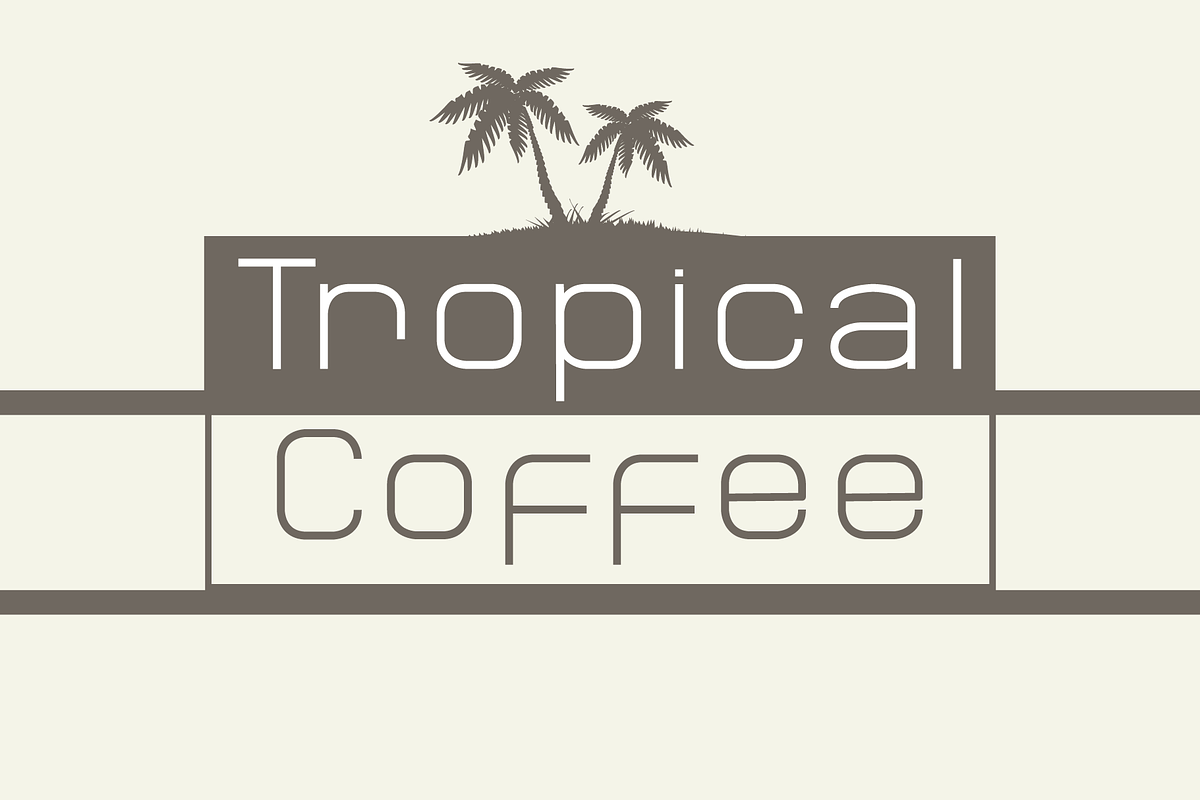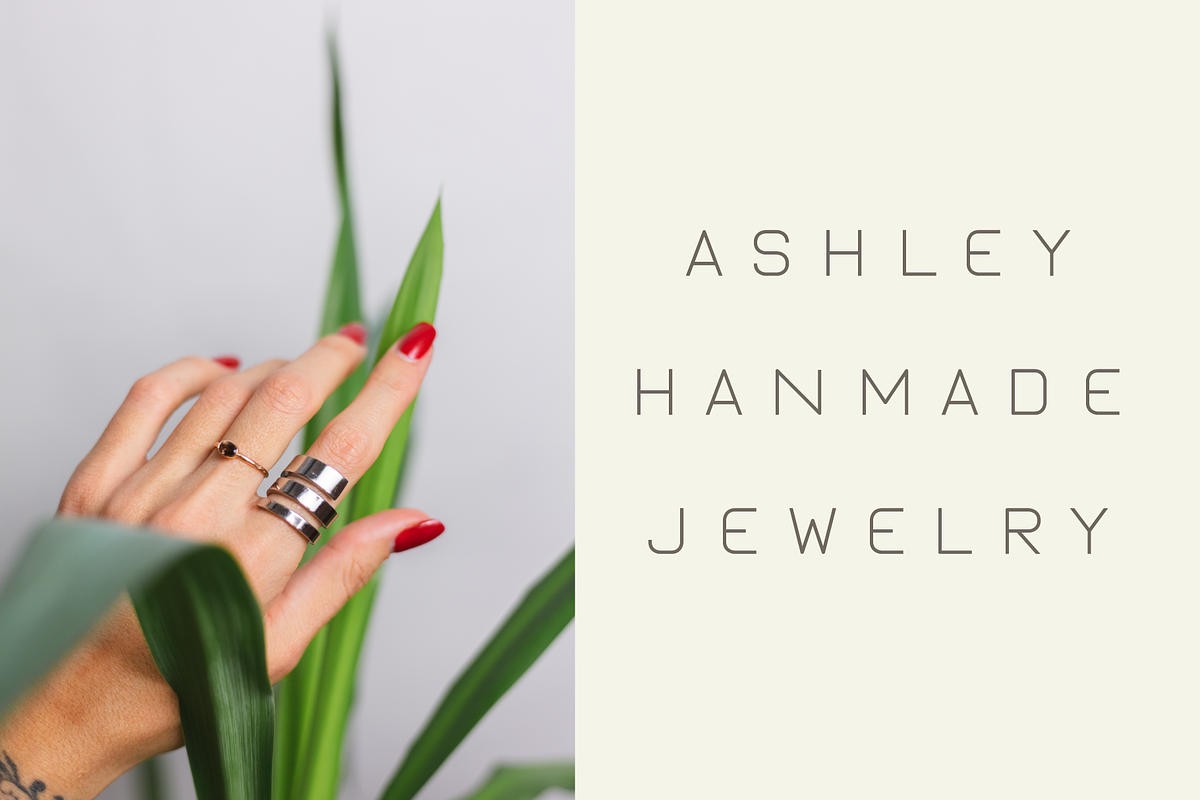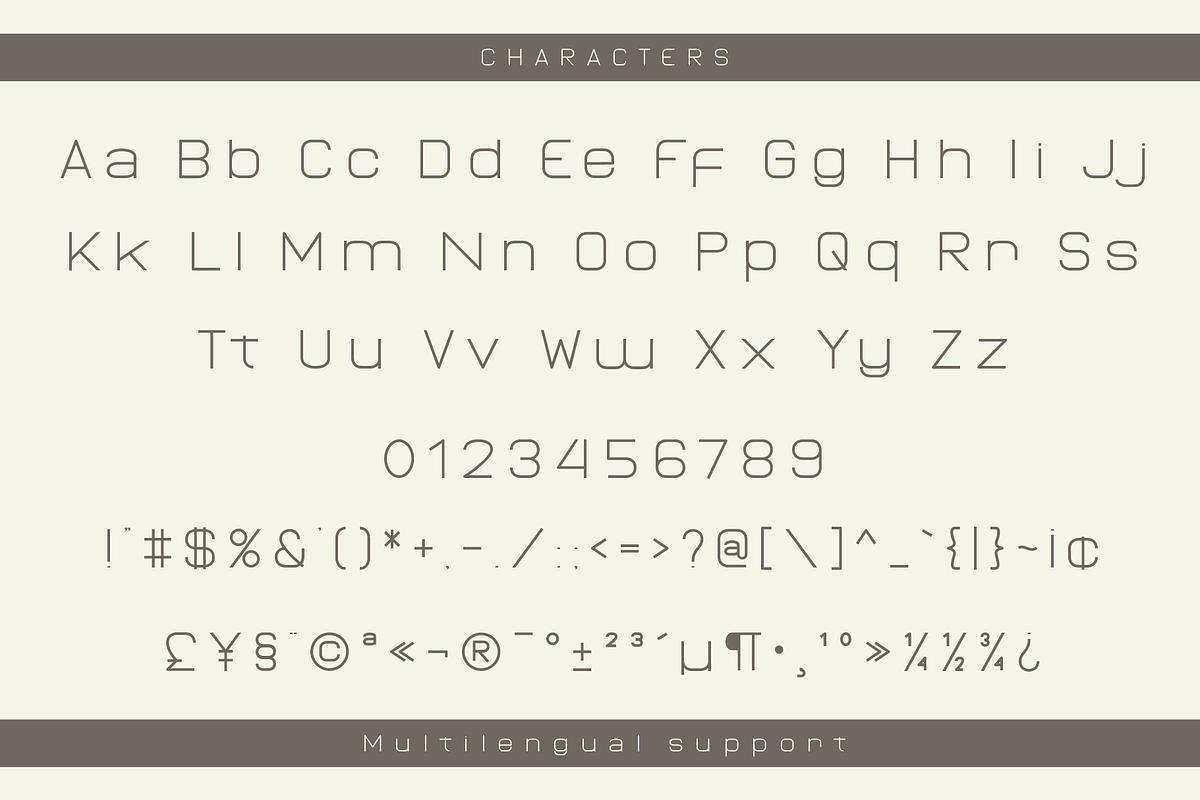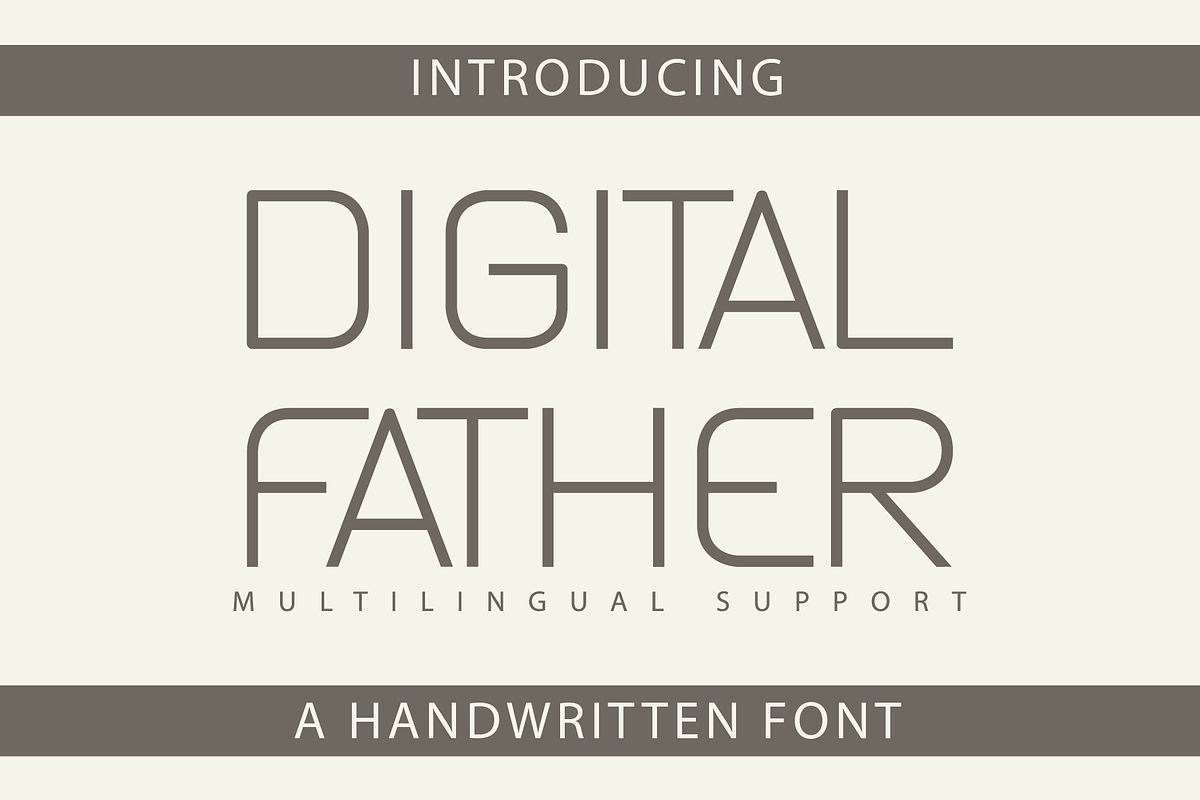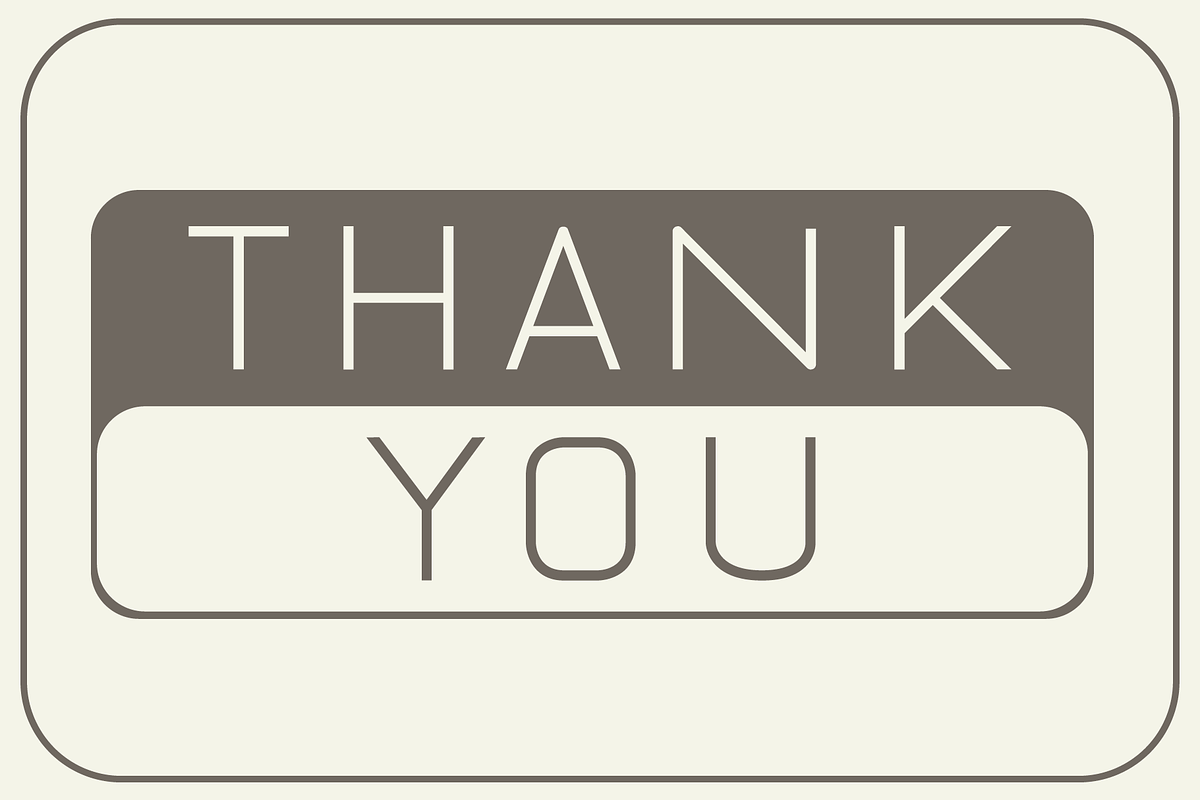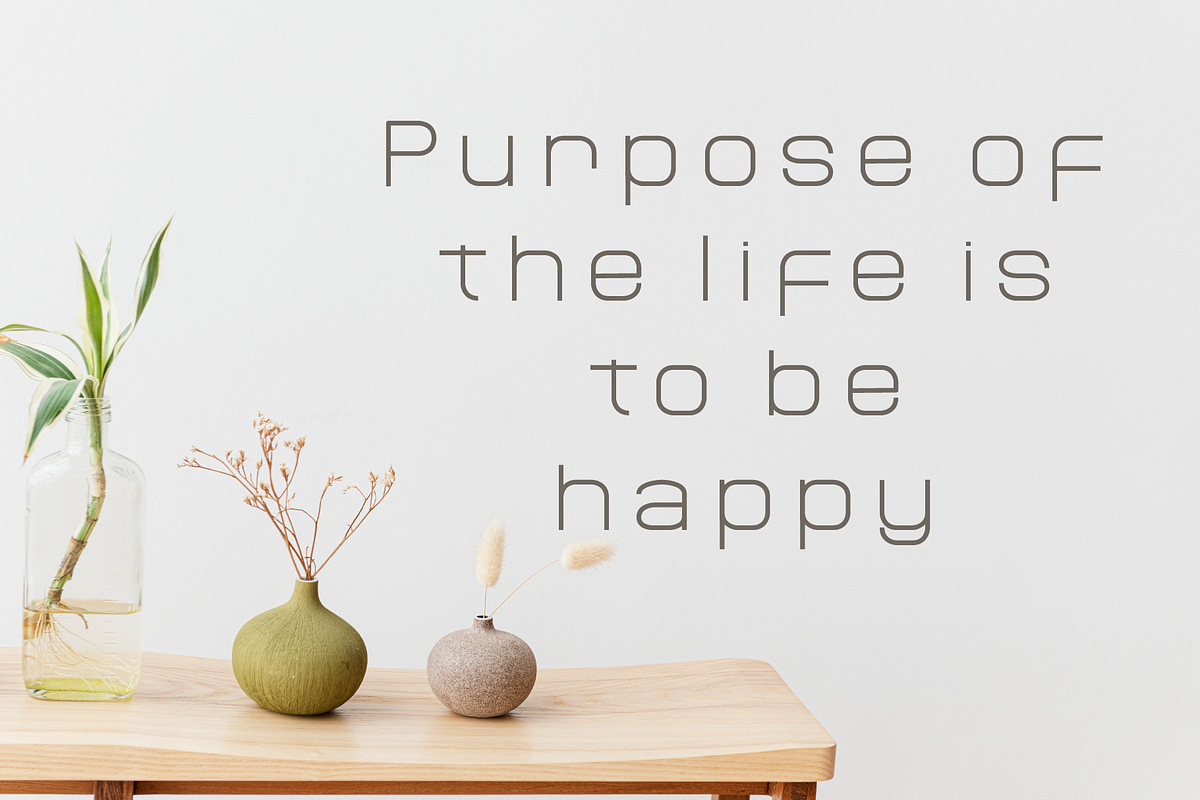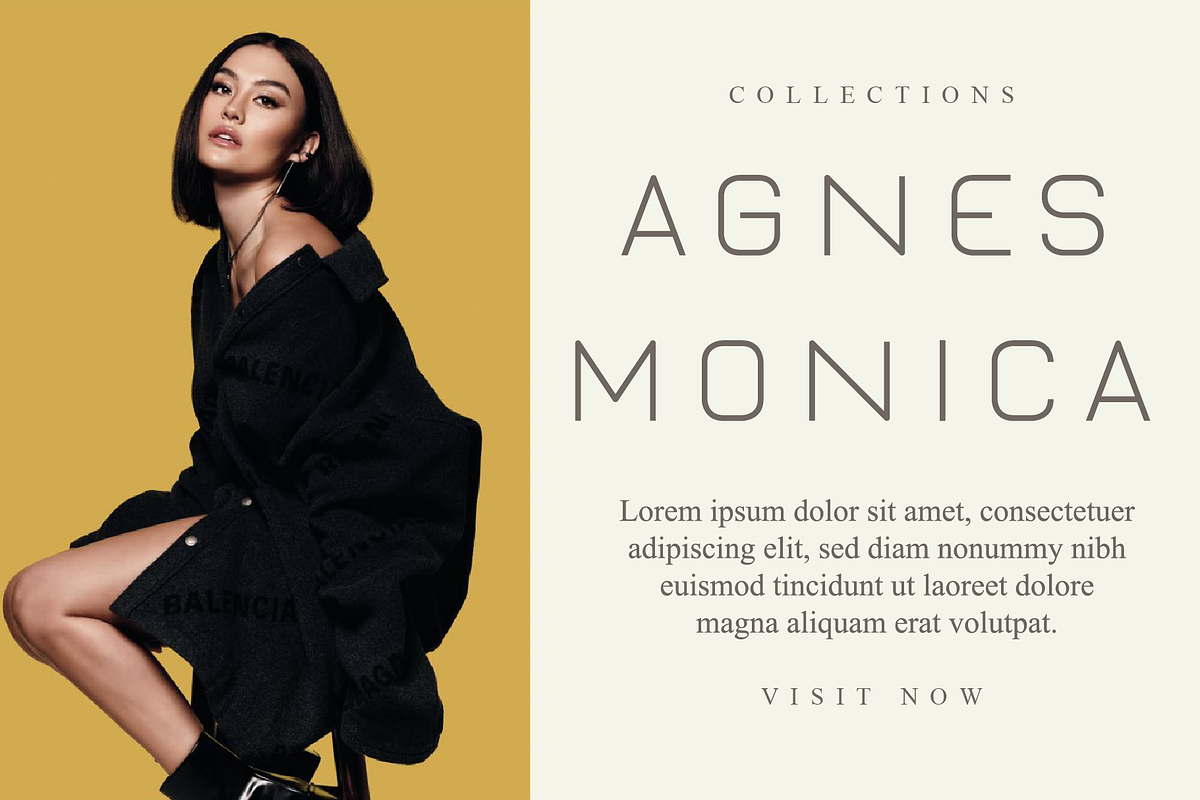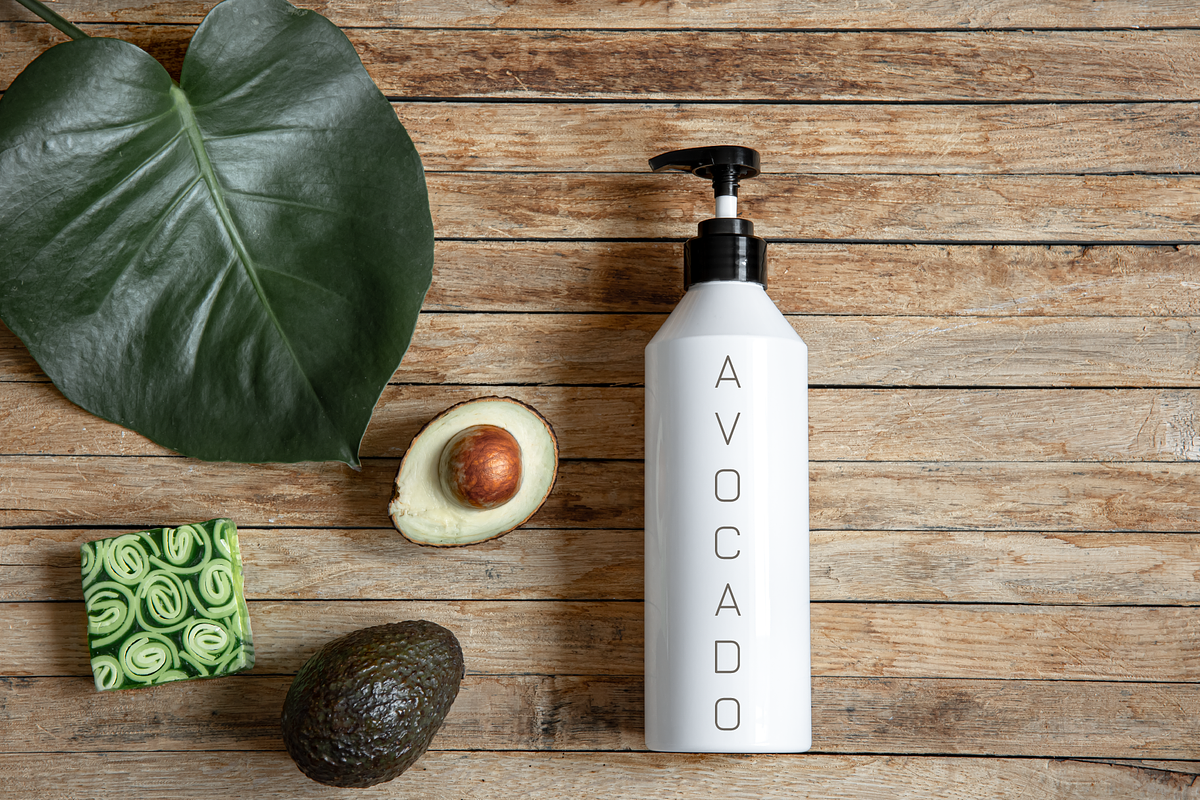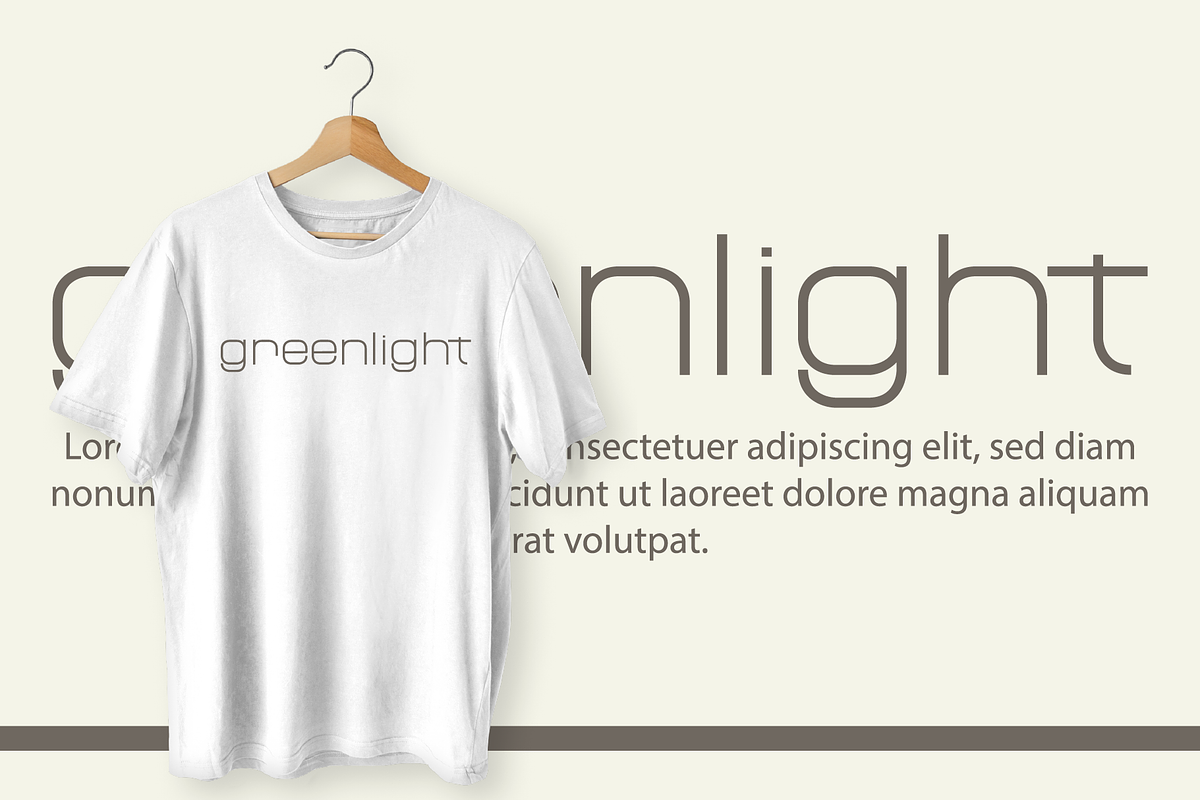
Digital Father - Sans Serif Font
Digital Father is a simple sans-serif font designed for a clean retro look. With its vintage balanced proportions, this font is perfect for creating a minimalist aesthetic in tattoos, logos, web design, and branding.